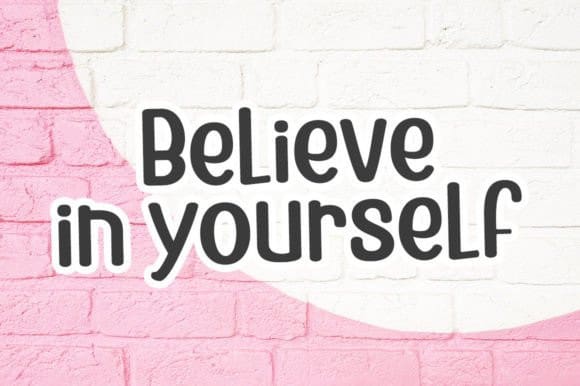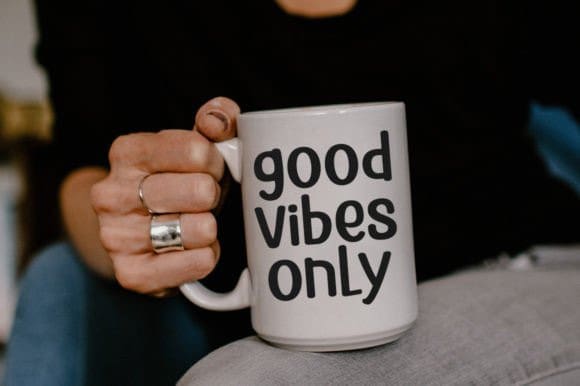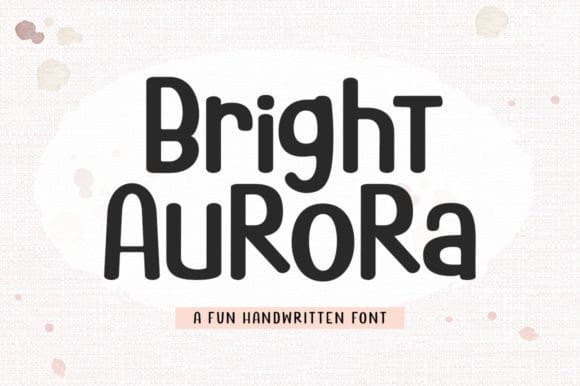
Bright Aurora Font
Bright Aurora Font is a lovely and cute handwritten display font. Its quirky characters are prefect for adding a whimsical touch to your designs.